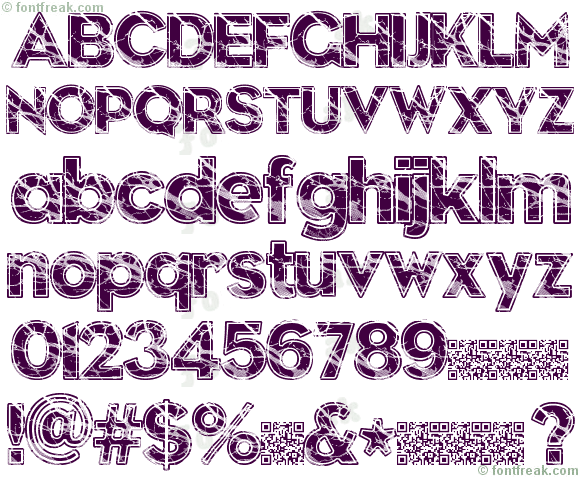
Slate
About Slate
Slate by Xerographer Fonts is a unique display typeface that beautifully marries a vintage aesthetic with modern design sensibilities. This font, characterized by its bold stroke weight and slightly distressed texture, exudes a handcrafted feel that adds personality to any project. The contrasting elements within the characters create a visually engaging experience, making it perfect for capturing attention. The spacing is well-balanced, allowing for readability while maintaining a decorative flair.
Best suited for creative applications, Slate excels in various contexts. It is an excellent choice for wedding invitations, where its charming and rustic appearance can set a warm, inviting tone. Additionally, the font’s distinctive style makes it ideal for movie posters, lending an artistic edge to the promotional material. Restaurant menus can benefit from Slate's unique character, providing a touch of sophistication that enhances the overall dining experience. Furthermore, it can be effectively utilized in branding for small businesses looking to convey a memorable image. Content creators will also find Slate an appealing choice for social media graphics and blog headers, as it captures attention and enhances visual storytelling.
Targeted towards graphic designers, small business owners, and content creators, Slate offers a versatile option that can elevate any design project. Its freeware license allows for easy accessibility, making it an attractive addition to any designer's toolkit.
What sets the Slate font apart is its harmonious blend of vintage charm and modern usability. By incorporating a touch of character into your designs, it creates a lasting impression, ensuring that your projects stand out. With the Slate font free download, you can easily incorporate this stylish typeface into your next creative endeavor, bringing a distinctive flair to your designs.